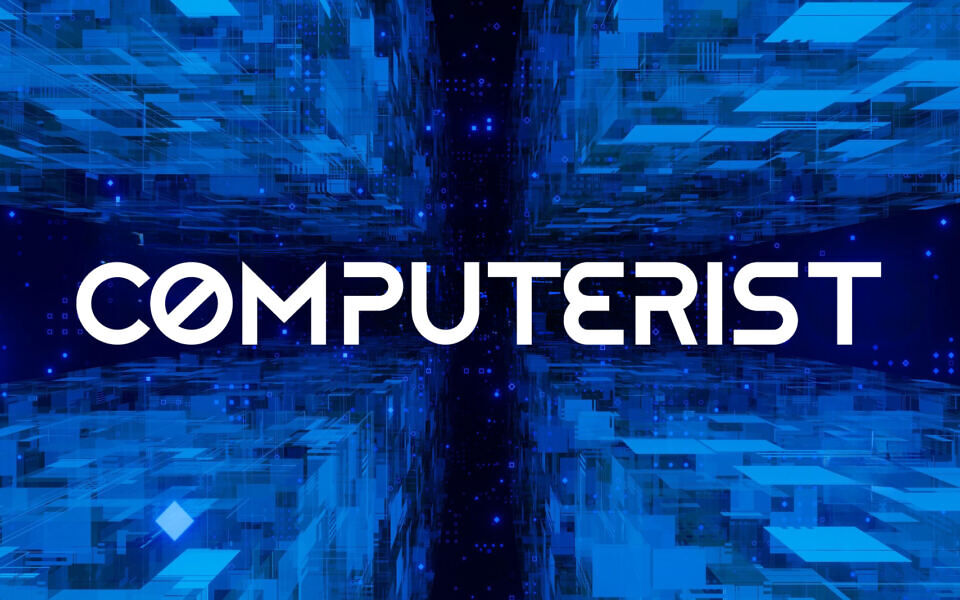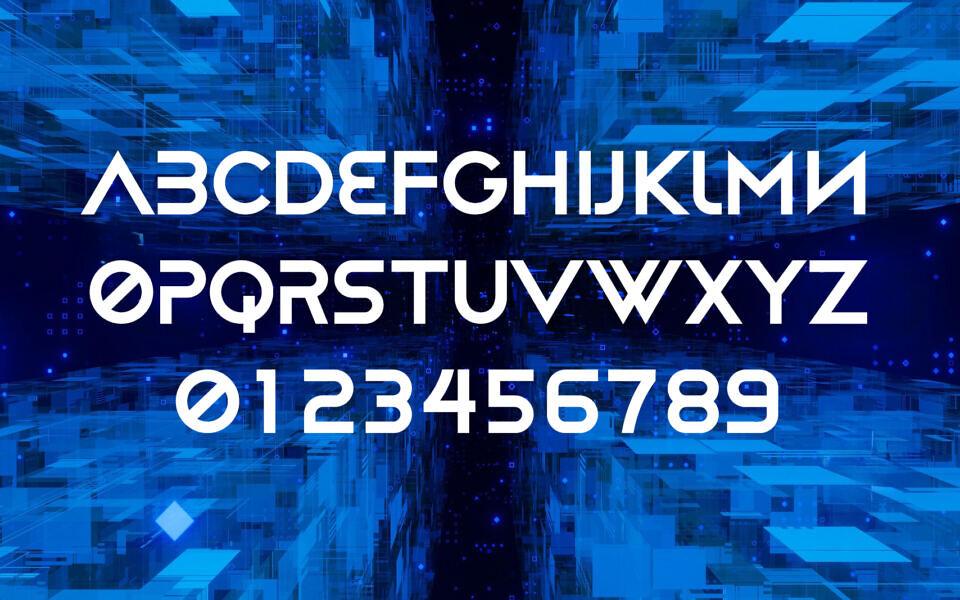
Computerist Font
Computerist is a free techno font radiating a futuristic, cyber-digital energy. This geometric sans-serif defines itself with sharp angles, unique sliced glyphs—notably the slashed ‘O’ and ‘0’—and stylized, gap-filled strokes visible in letters like ‘B’ and ‘E’.
Ideal for sci-fi branding, gaming headers, and tech-centric displays, its distinct alien-tech aesthetic ensures high readability while remaining ultra-modern.